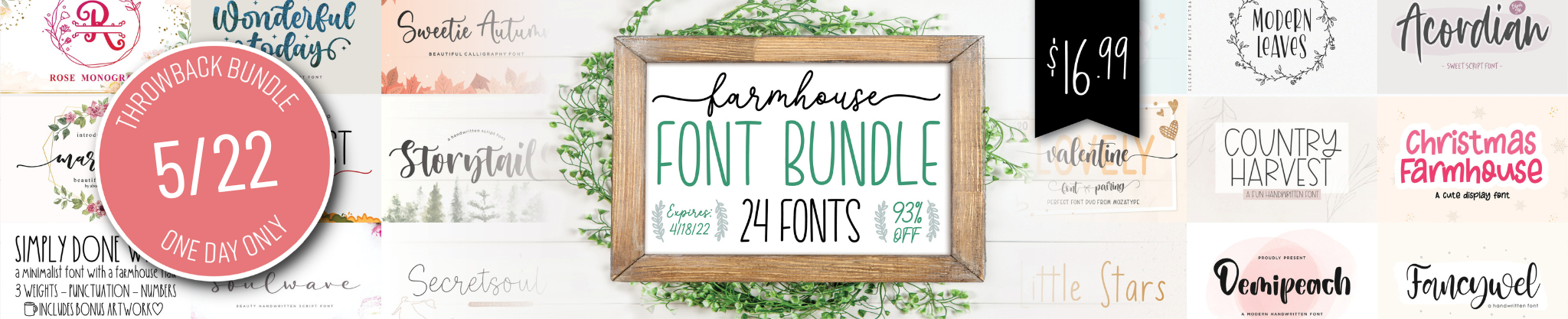
Rae Dunn Inspired Mugs with the Best Farmhouse Font
Are you a sublimation beginner? This project will show you how to sublimate a mug in the perfect farmhouse style using a font from the Farmhouse Font Bundle.